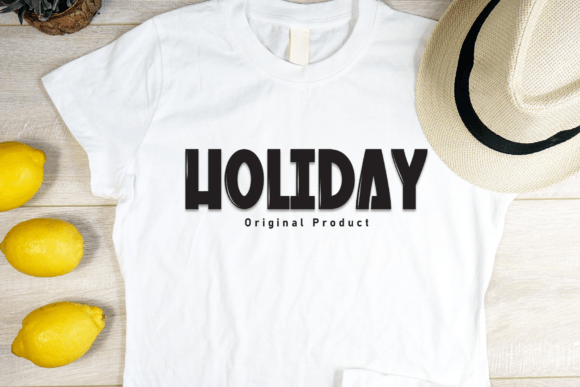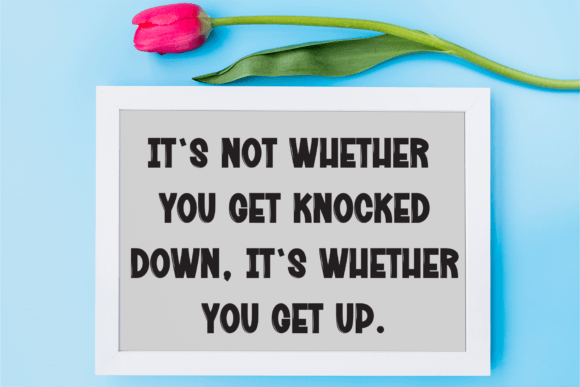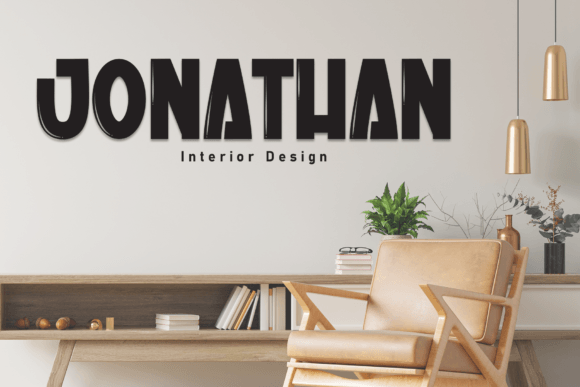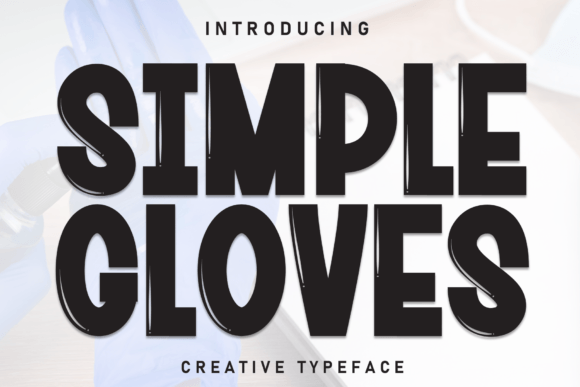
Introduction to Simple Gloves Font
Simple Gloves is a bold and easy-to-read display font.
Its thick letters are perfect for catching attention and making your message stand out Great for posters, headlines, and anything that needs a strong, clear look.
Simple Gloves Font offers exceptional quality and versatility, making it a valuable addition to your design toolkit. Whether you’re creating for personal projects or commercial use, Simple Gloves Font delivers professional results.